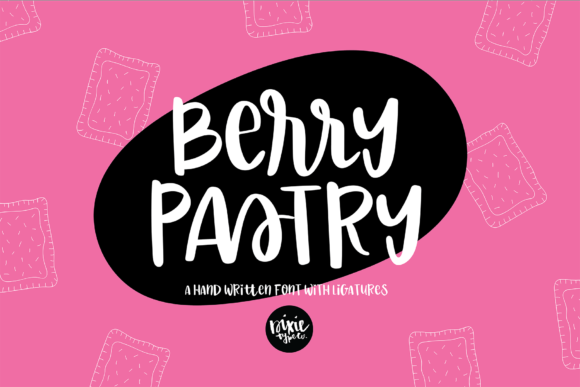
The Sweet Allure of Berry Pastry Font
As you sit down to plan the perfect birthday invitation or create a stunning logo, you know the magic happens when you find the right font. The perfect font can elevate your design and make it truly unforgettable. For many designers, that perfect font is the Berry Pastry Font, a modern calligraphy script that adds a touch of elegance to any project.
The Berry Pastry Font boasts a smooth line, dancing baseline, and an overall sense of sophistication. Whether you’re looking to add a personal touch to a wedding invitation or create a bold statement on a t-shirt, this versatile font has got you covered. Its value lies in its ability to add a touch of whimsy and romance to any design, making it a must-have for designers looking to create truly memorable pieces.
Berry Pastry Font Key Features
- Font Family: Berry Pastry Font is a unique, handwritten font designed to resemble a pastry or dessert.
- Character Set: The font includes a wide range of characters, including uppercase and lowercase letters, numbers, and punctuation marks.
- Unique Characteristics: The font’s unique, handwritten style makes it perfect for adding a personal touch to designs, and its cursive nature makes it ideal for titles, headings, and short paragraphs.
Berry Pastry Font Review
Overall, I think the Berry Pastry Font is a delightful and charming font, but it has its limitations. Let’s dive into what works well and what doesn’t.
- Unique and playful character: The Berry Pastry Font has a distinct personality that’s perfect for creative projects, like children’s books, food blogs, or even wedding invitations.
- Beautiful ligatures: The font features intricate ligatures that add a touch of elegance and sophistication, making it suitable for high-end branding or luxury packaging.
- Good legibility: Despite its playful nature, the font remains easy to read, even at smaller sizes.
- Limited language support: The font seems to be optimized for Latin-based languages, and its performance may degrade for languages with non-Latin scripts.
- Not ideal for body text: While the font is great for headings and titles, it may not be the best choice for large blocks of body text due to its cursive nature.
The Berry Pastry Font is a fun and charming addition to any designer’s toolkit. While it has its limitations, it’s perfect for projects that require a playful and elegant touch. Just be mindful of its limitations and use it accordingly.
Use Berry Pastry Font for:
– Creating whimsical and playful designs.
– Adding a touch of elegance to your branding.
– Designing invitations, menus, and other printed materials.
For best results, pair Berry Pastry Font with bold, contrasting colors and clean typography.